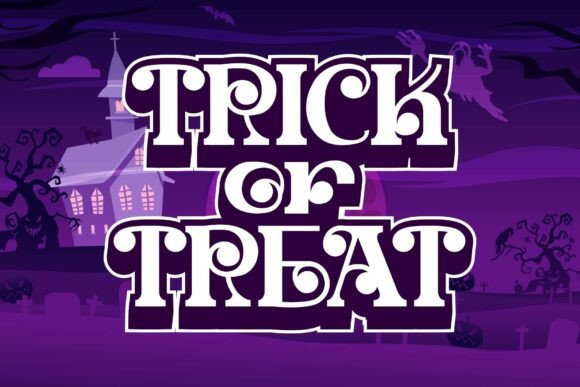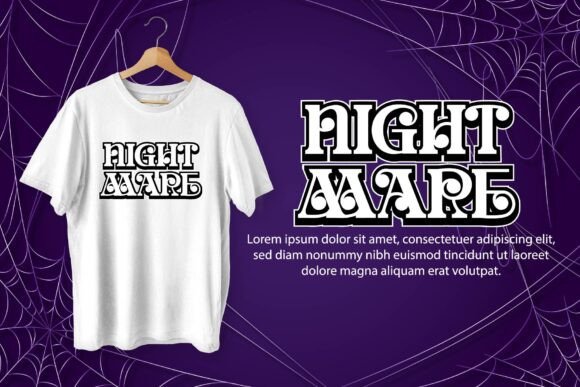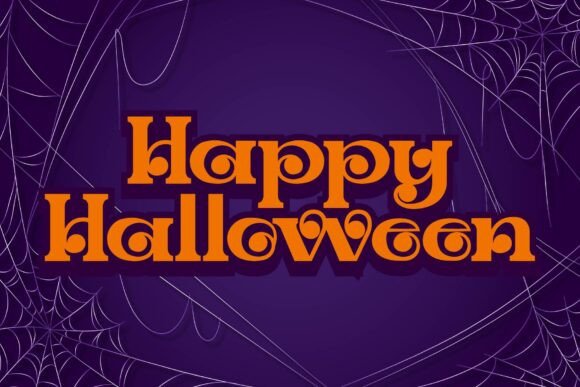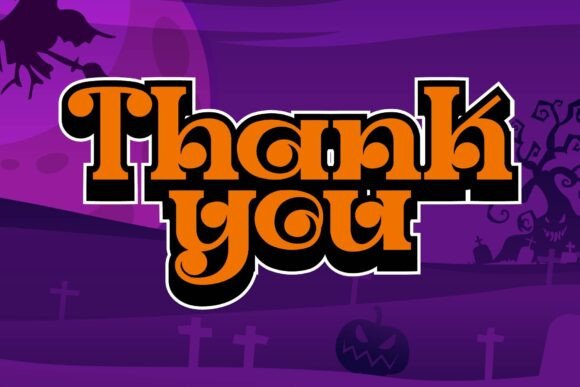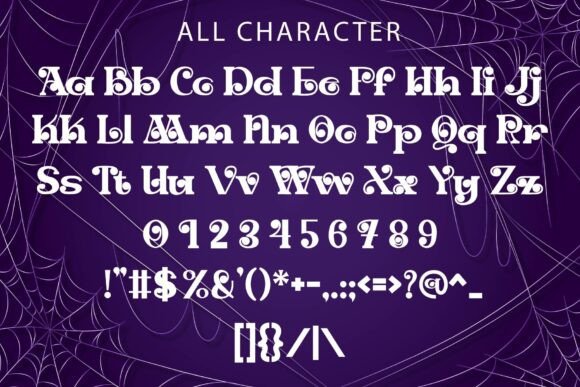
Unleash the Spooky Spirit with Halloween Font: A Comprehensive Guide
As the spookiest time of the year approaches, designers and crafters are on the lookout for the perfect font to add a touch of eeriness to their creations. Look no further than the Halloween Font, a fun and playful display font that’s sure to cast a spell on your audience. In this article, we’ll dive into the world of Halloween Font, exploring its features, uses, and benefits for designers and crafters.
What is Halloween Font?
Halloween Font is a display font designed to capture the essence of the spookiest holiday of the year. With its bold and playful design, this font is perfect for adding a touch of whimsy and eeriness to any design project. Whether you’re creating party invitations, signs, banners, or any other design that needs a spooky touch, Halloween Font is the perfect choice.
Key Features of Halloween Font
So, what makes Halloween Font so special? Here are some of its key features:
- PUA Encoding: Halloween Font is PUA (Private Use Area) encoded, which means you can access all of the glyphs and special characters with ease. This makes it easy to use and customize the font to suit your design needs.
- Wide Range of Glyphs: With Halloween Font, you’ll get access to a wide range of glyphs, including letters, numbers, and special characters. This means you can create unique and intricate designs that will set your project apart.
- High-Quality Design: Halloween Font is designed with high-quality and clarity in mind. The font is crisp and clear, making it perfect for use in a variety of design projects, from digital to print.
Uses of Halloween Font
So, how can you use Halloween Font in your design projects? Here are some ideas to get you started:
- Party Invitations: Create spooky and fun party invitations that will set the tone for your Halloween bash.
- Signs and Banners: Use Halloween Font to create eye-catching signs and banners that will grab attention and add a touch of eeriness to your event or display.
- Social Media Graphics: Add a touch of Halloween spirit to your social media graphics, including Facebook posts, Instagram stories, and Twitter headers.
- Crafting Projects: Use Halloween Font to add a personal touch to your crafting projects, including scrapbooking, card making, and DIY decorations.
Benefits of Using Halloween Font
So, why should you choose Halloween Font for your design projects? Here are some benefits to consider:
- Unique and Eye-Catching: Halloween Font is designed to stand out and grab attention. With its bold and playful design, you’ll create unique and eye-catching designs that will set your project apart.
- Easy to Use: With PUA encoding and a wide range of glyphs, Halloween Font is easy to use and customize, even for designers and crafters with limited experience.
- Versatile: Halloween Font can be used in a variety of design projects, from digital to print, making it a versatile addition to your font library.
In conclusion, Halloween Font is a fun and playful display font that’s perfect for adding a touch of spooky spirit to your design projects. With its bold and playful design, PUA encoding, and wide range of glyphs, this font is sure to cast a spell on your audience. Whether you’re a designer or crafter, Halloween Font is a great addition to your font library, and is sure to inspire your creativity and imagination.